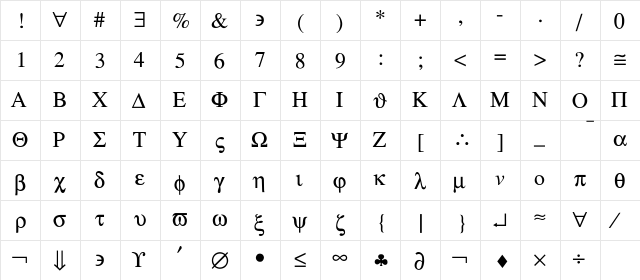
JimmyG Regular
Design Context for JimmyG Typeface
JimmyG is a composed and adaptable typeface that performs quietly and consistently across a wide range of design contexts.